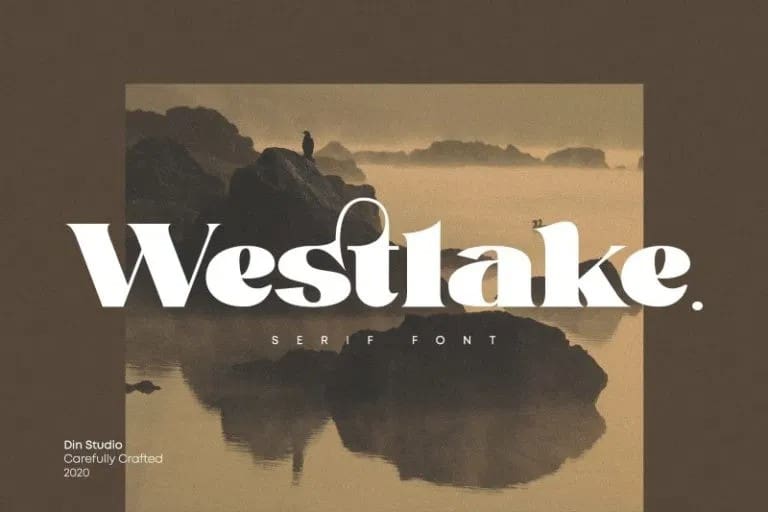
Westlake Serif Font
Westlake Serif Font is a playful yet elegant serif. Made from font designer named Din Studio. It teases your eyes with its curves yet still able to maintain its classy composure. Made for any professional project branding. It is the best for logos, branding and quotes. Every letter has a unique and beautiful touch.